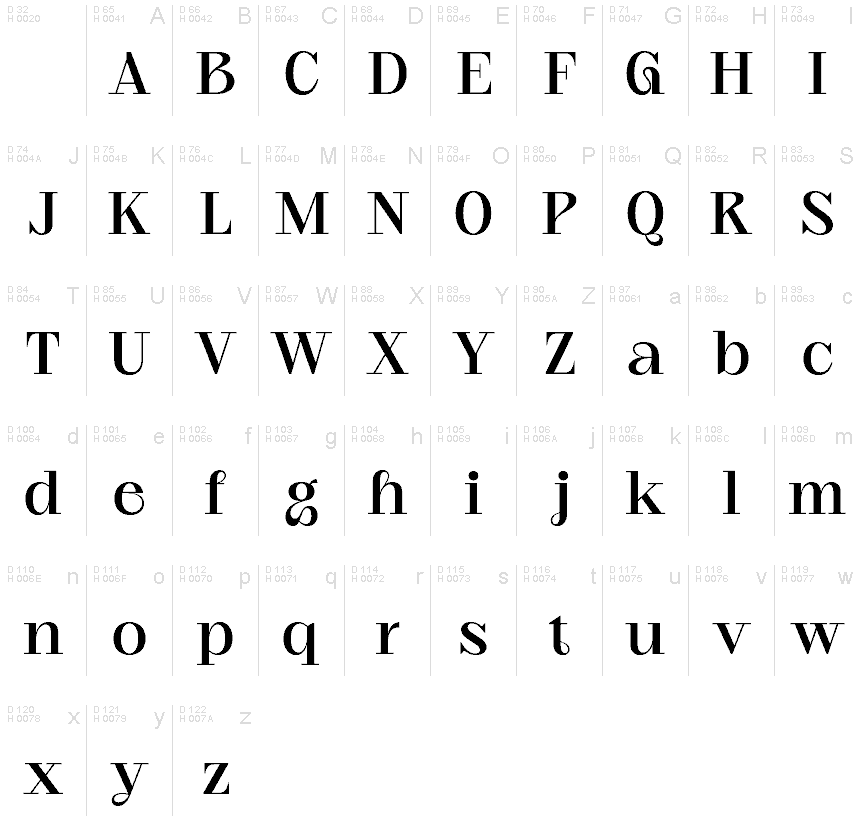
CS Bogart Regular Demo
CS Bogart font is a vintage serif typeface designed by Craft Supply Co. It encapsulates elegance and sophistication, with classic ornamental details and refined curves. Seamlessly combining traditional charm with contemporary design, this font brings a timeless appeal to your projects.